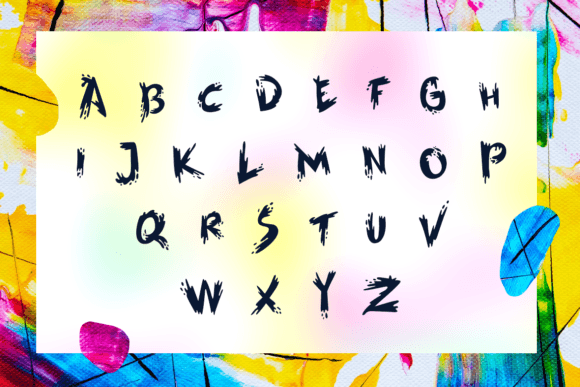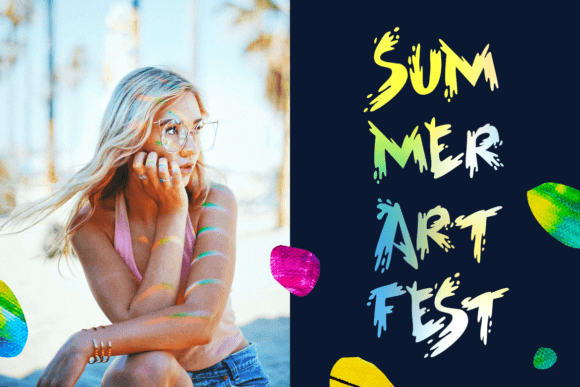
Introduction to Paint Riot Font
Remember that moment when you’re brainstorming for a creative project and you need the perfect title to grab attention? You’re scrolling through your design resource collection, searching for the perfect font to make your text stand out. That’s exactly when I fell in love with the Paint Riot Font – its unique blend of thick lines and playful paint splashes immediately caught my eye.
This sans-serif font is more than just a quirky addition to your design arsenal; it’s a valuable resource for designers looking to add some personality to their work. With its versatility and high-quality design, Paint Riot Font can be used on both dark and light backgrounds, making it a great addition to any creative project.
Key Features of Paint Riot Font
- High-quality, unique font design suitable for creative projects
- Exclusive, handcrafted font design with a bold, graffiti-inspired aesthetic
Honest Review: Paint Riot Font
What works well is the font’s versatility and wide range of styles, which make it perfect for various design applications. I love the bold and vibrant colors that add a pop of energy to any design. ✨ The font is also incredibly easy to use, with a transparent background that makes it seamless to work with.
Here are some of my favorite features of the Paint Riot Font:
- Wide range of styles and colors
One limitation I’ve noticed is that the font may not be suitable for corporate or professional designs, as it has a more playful and edgy vibe. ⚠️ However, for personal or creative projects, this font is a great choice.
Tips for Getting the Most Out of Paint Riot Font
To get the most out of Paint Riot Font, use it in conjunction with other high-quality design elements to create a visually appealing design. Experiment with different font sizes and colors to add depth and interest to your project.
Common Use Cases for Paint Riot Font
The Paint Riot Font is commonly used in creative projects such as social media graphics, posters, and flyers. It is also used in business presentations and marketing materials to add a touch of creativity and professionalism.